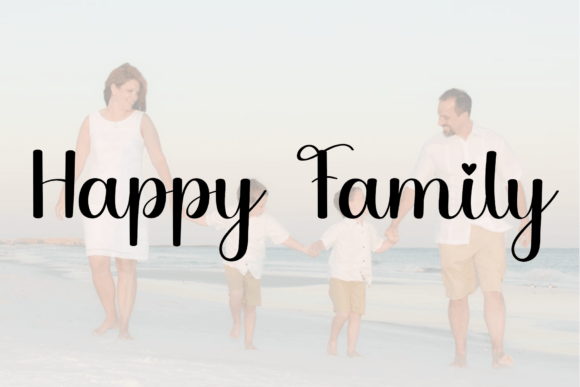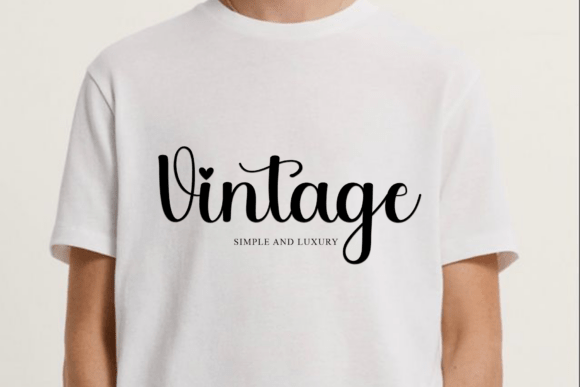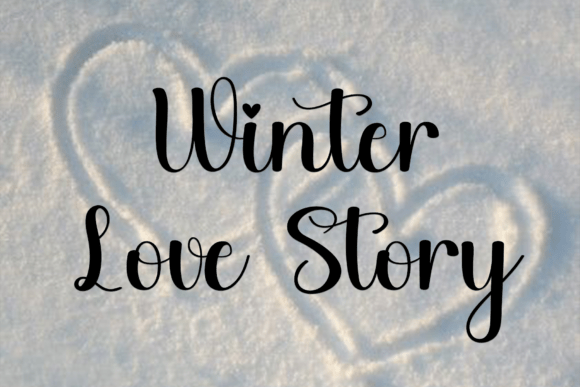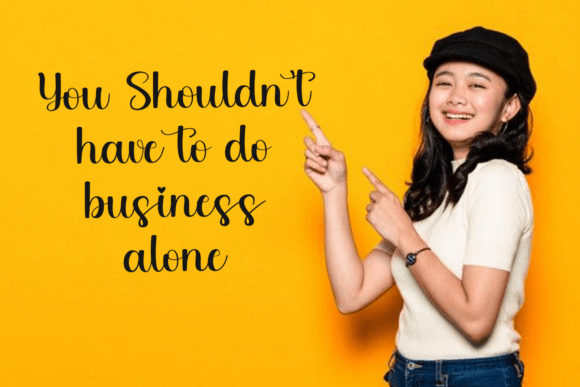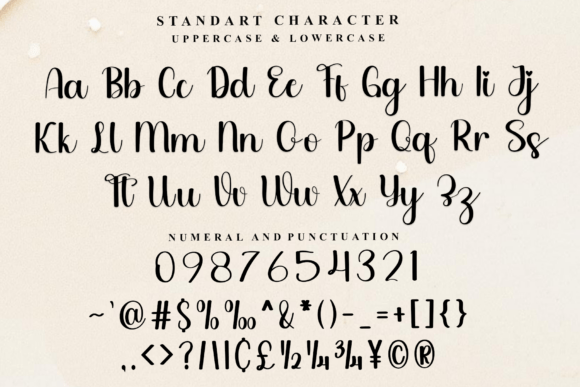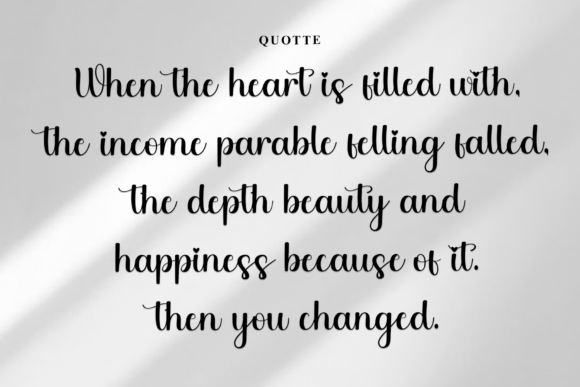
Introducing Capture Font: Elevate Your Designs with a Unique Touch
In the world of typography, a font can make or break a design. It’s the perfect blend of style, elegance, and personality that captures the essence of a brand or creative project. If you’re on the hunt for a font that stands out from the crowd, look no further than Capture Font. Designed with a soft, unique touch, Capture Font is a beautiful and eye-catching addition to any design project.
The Distinctive Character of Capture Font
Capture Font boasts distinctive strokes that give it a special character, making it both meaningful and versatile for future use. Its unique design ensures that your creative works will stand out, whether you’re working on a logo, branding materials, crafts, or other artistic projects. The font’s natural style is perfect for designers and crafters looking to add a personal touch to their work.
Endless Possibilities with Capture Font
One of the most significant advantages of Capture Font is its versatility. With a wide range of characters, you can experiment with various design projects, from elegant headings to creative crafts. The font’s compatibility with multiple applications, including Windows and open-source platforms, makes it easy to incorporate into your workflow.
Capture Font is an ideal choice for designers and crafters working on a variety of projects, such as:
- Logos and branding materials: Create a lasting impression with a unique and memorable font.
- Posters and flyers: Add a touch of elegance and sophistication to your promotional materials.
- Crafts and DIY projects: Personalize your handmade creations with a beautiful, natural font style.
- Web design: Enhance your website’s typography with a font that’s both visually appealing and easy to read.
Why Choose Capture Font?
So, what sets Capture Font apart from other fonts? Here are just a few reasons why designers and crafters love this beautiful font:
- Unique design: Capture Font’s distinctive strokes and soft touch make it a one-of-a-kind addition to any design project.
- Versatility: With various characters and compatibility with multiple applications, Capture Font is perfect for a wide range of projects.
- Natural style: The font’s natural style makes it perfect for designers and crafters looking for a more organic look.
Tips for Using Capture Font
To get the most out of Capture Font, here are a few tips to keep in mind:
- Experiment with sizes: Capture Font looks great in various sizes, from large headings to smaller body text.
- Play with colors: The font’s natural style pairs well with a range of colors, from bold and bright to soft and pastel.
- Mix and match: Combine Capture Font with other fonts to create a unique and visually appealing design.
Capture Font is a beautiful and eye-catching addition to any design project. Its unique design, versatility, and natural style make it perfect for designers and crafters looking to elevate their work. With its compatibility with multiple applications and ease of use, Capture Font is an excellent choice for a wide range of creative projects. Whether you’re working on a logo, branding materials, crafts, or other artistic projects, Capture Font is sure to enhance your designs and appeal to a wide range of audiences.